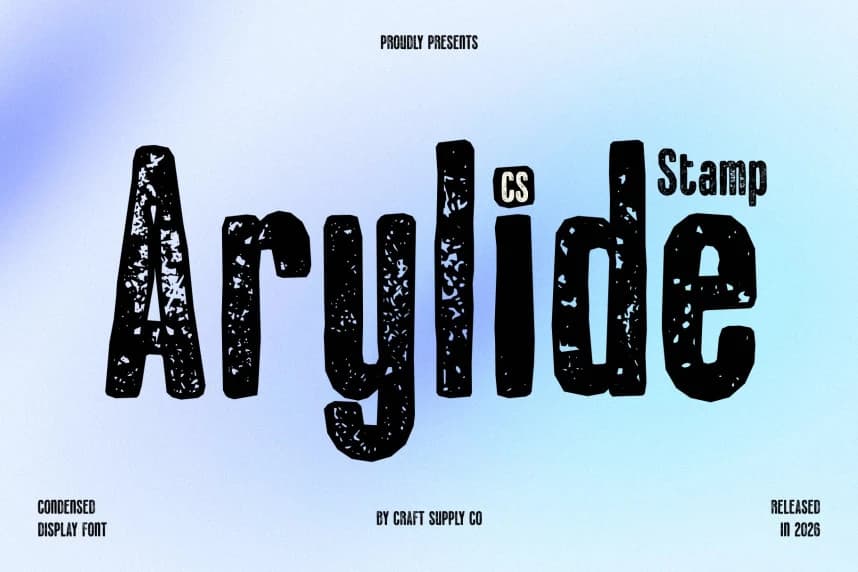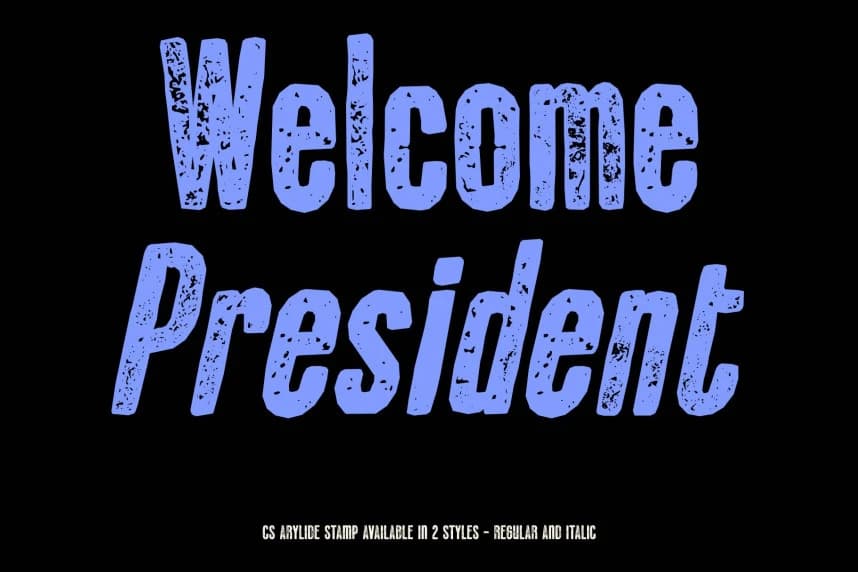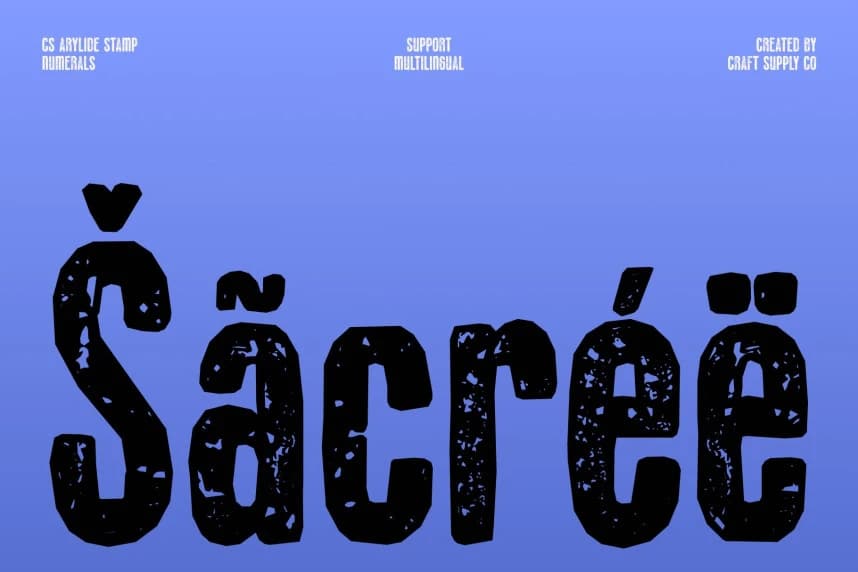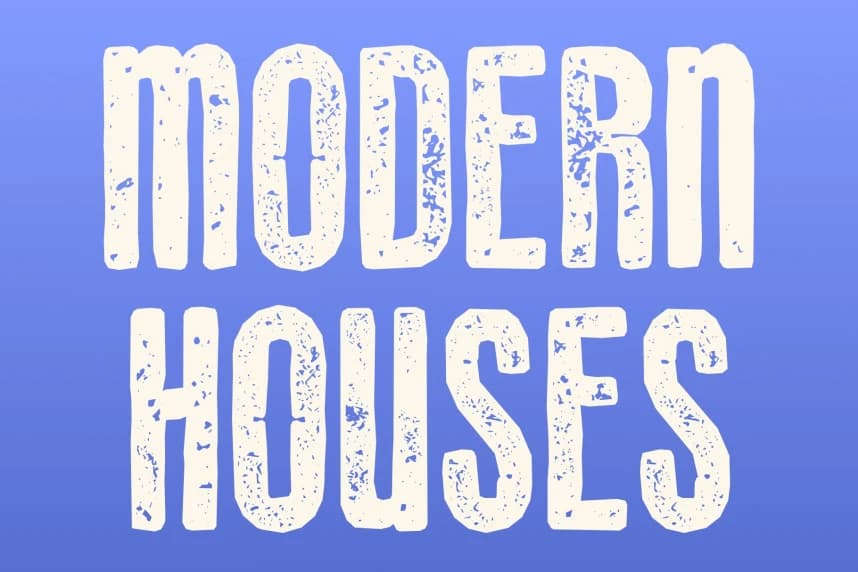
CS Arylide Stamp Font
CS Arylide Stamp Font – Precision Inktrap with Textured Modern Edge Sleek Sans Serif with a Stamped Finish. This font enhances its contemporary sans-serif structure with a subtle stamped texture that adds depth and tactile character.